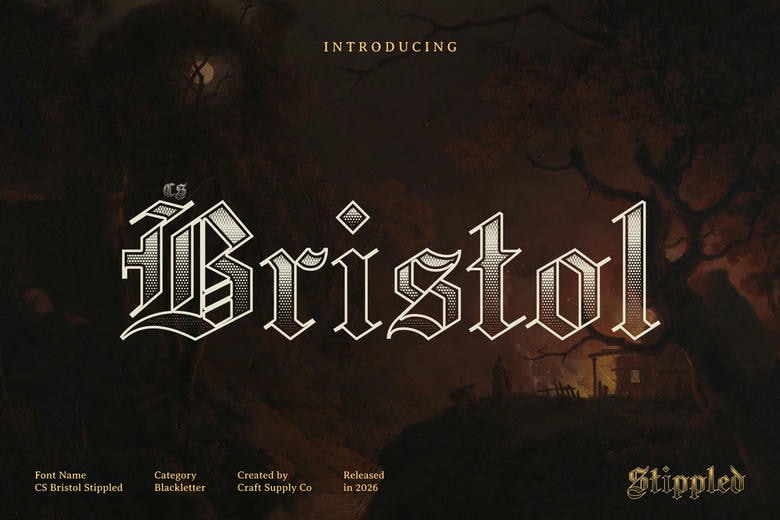
Bristol Stippled Font Old English Blackletter with Textured Prestige Classic Old English Blackletter with Stippled Detail This is a premium display serif typeface, which holds on to the classical beauty of the Old English blackletter style. It is based on traditional English typography and its angular, bold typeface gives an impression of authority and sophistication. The stippled texture further adds a degree of dimension to the letterforms and makes the font look handcrafted and engraved which also adds to its historicity.
Expansive Character Flamboyant Design Characterized by highly detailed designs and authoritative forms, is a sign of prestige and tradition in the classic blackletter typography. Its elaborated lines and made shapes produce the dramatic visual effects, and the stippled effect also provides the texture and artistic content. This blend creates a typography which is not only mighty but also pleasing to the eye.
Historic Beauty with Dimensional Layers The stippled texture pattern is well made with enhancing the dramatic contrast and decorative edges of any character. This stratum helps to support the historical feel of the font, making the letters look weighty, lively and three-dimensional and preserving the powerful presence of the classic blackletter design.
Best with Formal and Heritage-Inspired Designs It is best suited to the projects requiring the sense of prestige, tradition, and elegance. It is perfect on formal invitations, certificates, heritage branding, editorial headlines, and vintage-inspired posters. This font has an Old English flavour and a rough appearance that gives it a classic and authoritative typographic appearance.
Bristol Stippled Blackletter Font